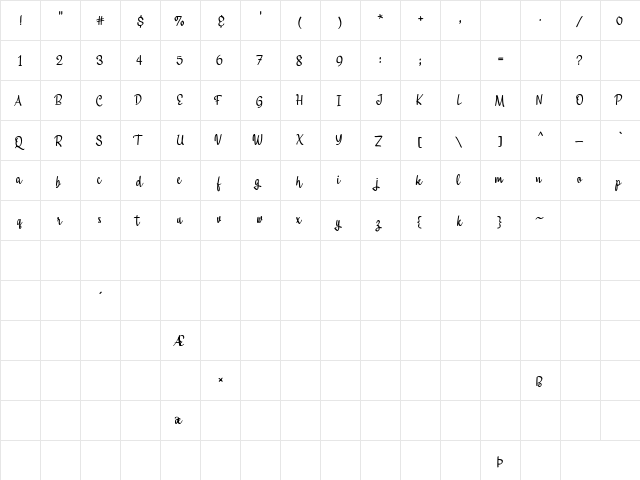
Lovestreet Script Signature
| Designer | Nico Muslib |
Design Context for Lovestreet Typeface
Lovestreet brings a calligraphic fluidity to the page — its connecting strokes and expressive curves give it an unmistakably human quality.
Font Pairing: Combine Lovestreet with a simple geometric sans for maximum contrast — the tension between flowing curves and clean structure is a classic typographic pairing.
Pro Tip: Use Lovestreet for short runs of text — names, titles, or taglines. Extended body copy in script faces tires the eye quickly.